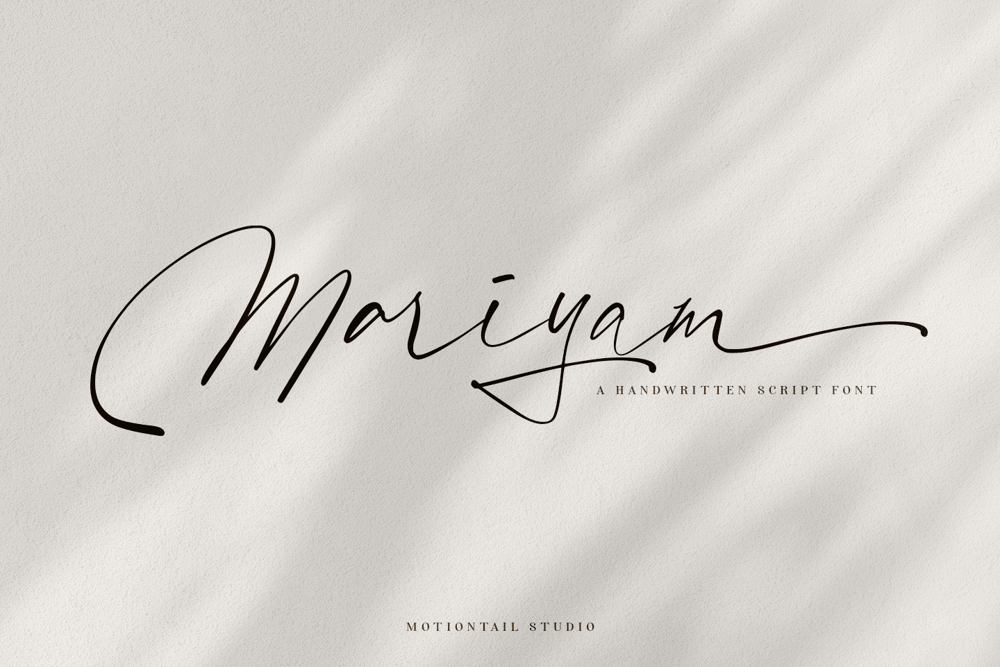
Mariyam
Mariyam font
Mariyam Font Family was designed by Saiful and published by MotionTail. Mariyam contains 1 styles and family package options. Mariyam Signature font a beautiful typeface awesome character. Mariyam Signature font it’s perfect for namecard, poster, logo, magazine, cover, banner, tshirt and headers, or even large-scale artwork.Features:• OpenType Features• Uppercase & Lowercase• Numeral & Punctuation• PUA Encoded• Multilingual support ÀÁÂÃÄÅÇEÈÉÊËIÌÍÎÏNÑOØÒÓÔÕÖUÙÜÚÛWYÝŸŸÆ